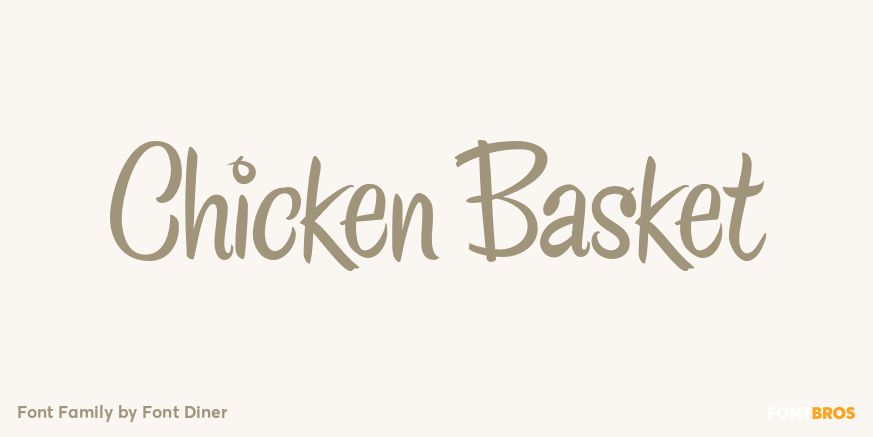
HomeFont BrosRetro (1936-1965)Chicken Basket Retro (1936-1965)Scripts: CasualWacky Chicken Basket FacebookXPinterestWhatsApp 1 of 1 About Chicken Basket Yee Haw! Get your hands on this Southern-fried brush script perfect for every occasion!  DOWNLOAD ON FONT BROSThis font is sold and delivered by Font Bros. Font Canyon may earn a commission if you buy through this link. People also explored Quasimodo Font Ceclow Font Boho Font Mayblossom Gilligan Shine Font Heart Love Font Choerunnisa Font PN Spoken Word Font Retano Script Font 244 0 TagsChicken Basket Font Previous articleYWFT MullinoNext articleRough Fleurons Calligraphic LEAVE A REPLY Cancel reply Comment: Please enter your comment! Name:* Please enter your name here Email:* You have entered an incorrect email address! Please enter your email address here Website: Save my name, email, and website in this browser for the next time I comment. Personal Use Free Good Timing – Bold Personal Use Free Read more about this font Caramel Latte Personal Use Free Read more about this font Miss Love Personal Use Free Read more about this font Autumn Flowers Font Personal Use Free Read more about this font BLOG How to Cut Any Font on Cricut: Convert a Font to SVG (Free) Turn any font into a clean SVG so it cuts crisp on Cricut - a quick 3-step workflow using a free font-to-SVG tool. Exploring Font Trends Best Fonts for T-Shirt Design – Top 2025 Picks Transform Your Website: Elevate Your Typography with 7 Best Web Font Generators